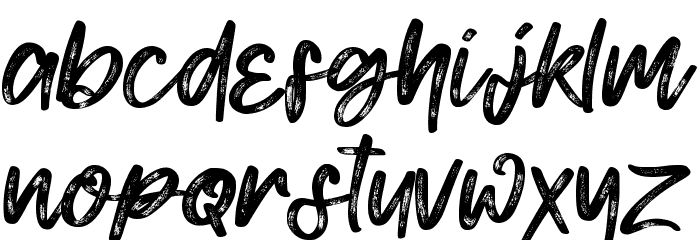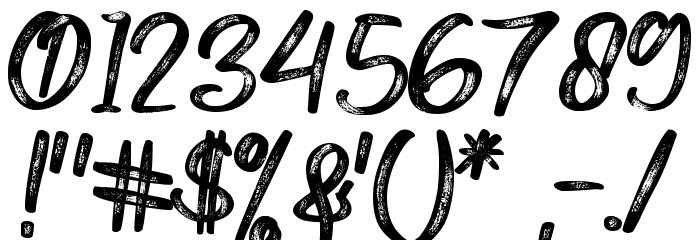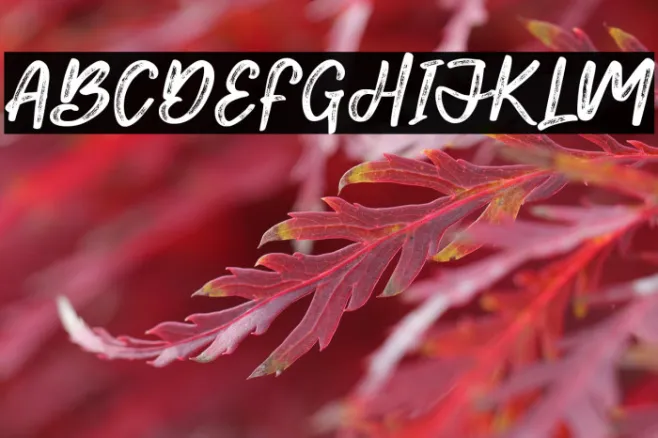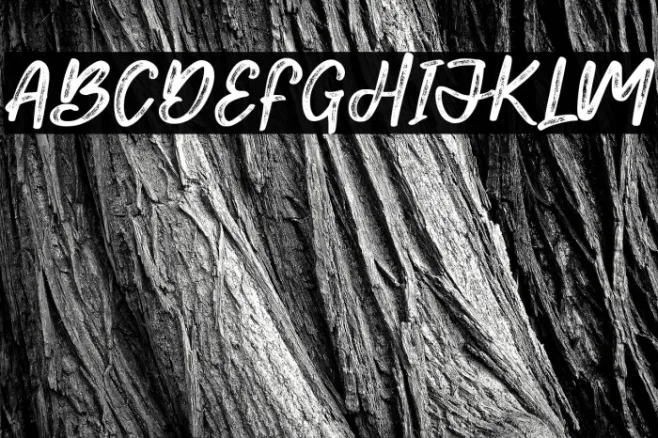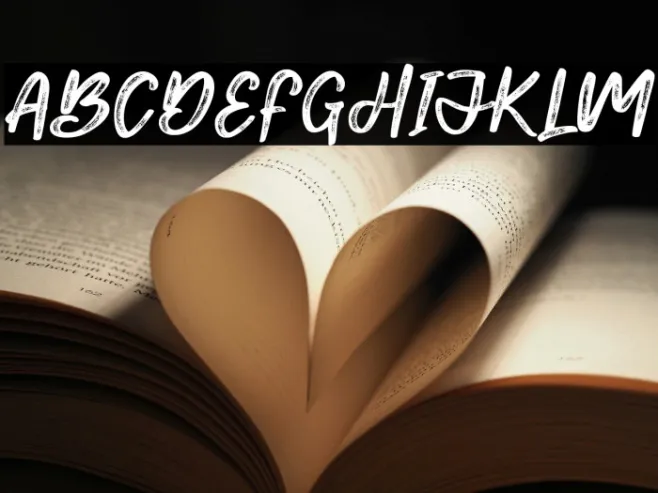
Smith mouth Font
This font features a bold, handwritten style with a textured, brush-like appearance. The characters are dynamic and expressive, with a playful and artistic flair. The uppercase and lowercase letters maintain a consistent style, while the numbers and special characters complement the overall design. The texture gives it a slightly rough, organic feel, adding to its charm and uniqueness. This font is ideal for projects that require a personal touch or a creative, informal vibe.
A bold, textured handwritten font with a playful and artistic style.
- Proposed Projects: Perfect for greeting cards, posters, branding, social media graphics, and creative projects that require a personal touch.